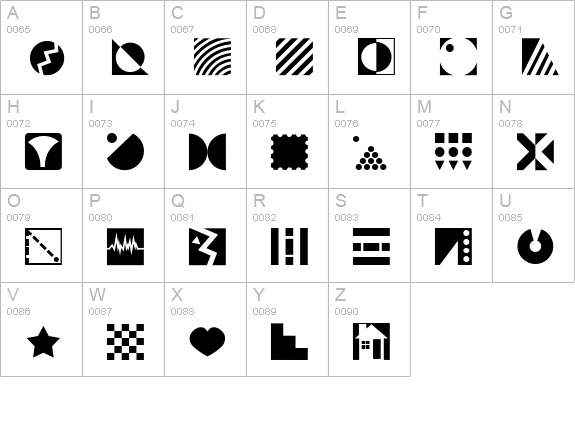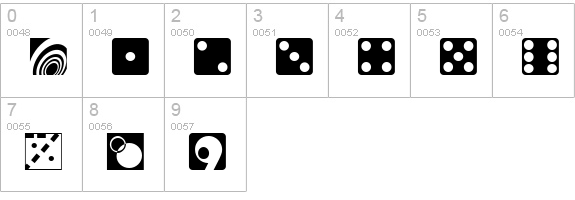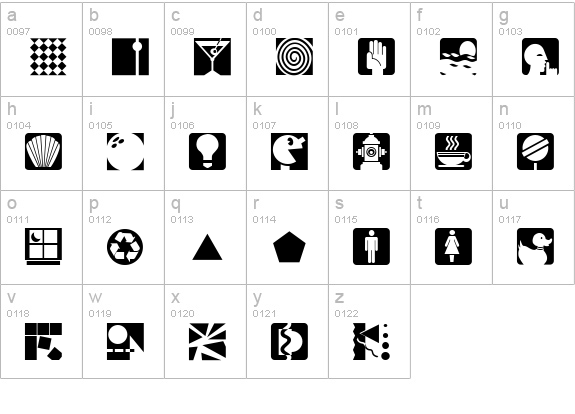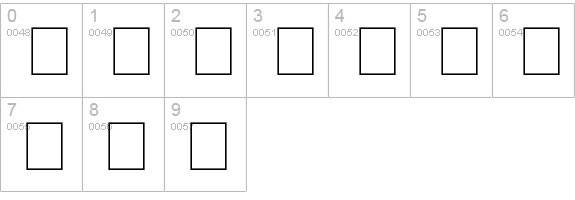
GeoType Font Details
Introducing GeoType font, a modern and versatile typeface that is perfect for a wide range of design projects. With its clean lines and geometric shapes, GeoType exudes a contemporary and stylish aesthetic that is sure to make your designs stand out. Whether you're working on branding, editorial design, or web projects, GeoType is the perfect choice to add a touch of sophistication to your work. The best part? GeoType is completely free to download at FontsMarket.com. That's right, you can access this stunning font without spending a dime. So why wait? Elevate your design projects with GeoType today and bring a touch of modern elegance to your work.